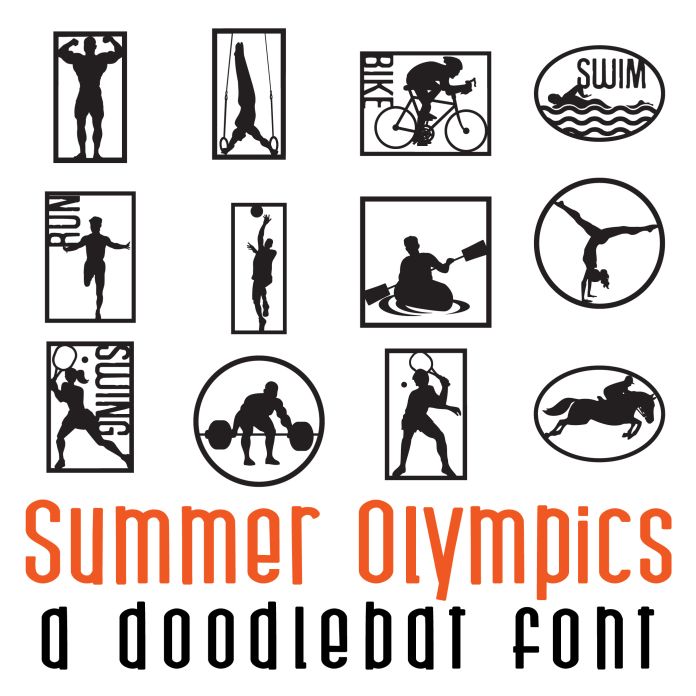
This fun doodlebat font features 26 different summer olympic images, perfect for cards, crafts, gifts, decor, scrapbook pages, planner stickers, and more!